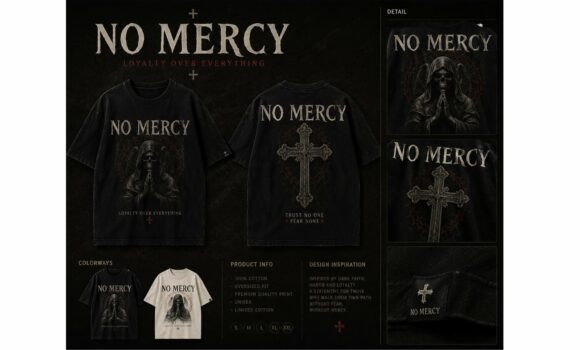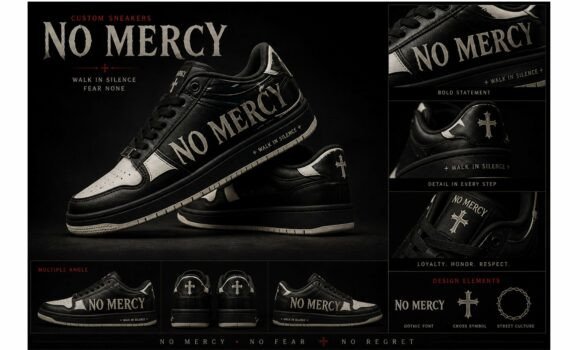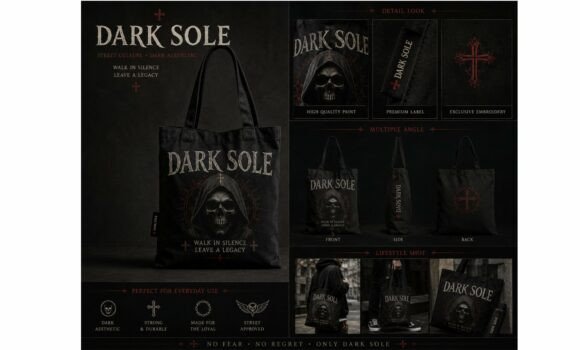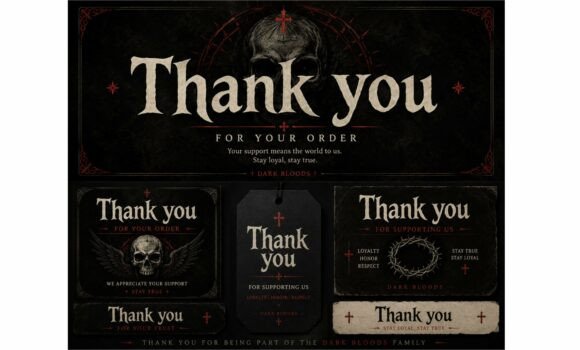
The Perfect Font for Your Darkest Creations
Have you ever stared at a blank canvas, eager to unleash your creativity but struggling to find the right words to bring your vision to life? That’s where the Dark Bloods Font comes in – a powerful tool for designers who crave a bold, dramatic typeface that screams darkness and intensity. With its sharp letterforms and vintage gothic character, this font is a game-changer for anyone looking to create streetwear, music artwork, tattoo designs, or premium apparel graphics that exude a sense of edginess and sophistication.
The Dark Bloods Font is more than just a stylish addition to your designs – it’s a statement piece that commands attention and sets the tone for your brand or project. Whether you’re working on a horror-themed poster, a metal band’s logo, or an urban fashion campaign, this font is the perfect choice for those who dare to be bold and fearless in their creative endeavors.
Key Features of Dark Bloods Font
- Font Family: Dark Bloods Font is a unique, hand-drawn font family consisting of multiple styles and weights.
- Character Set: Includes a wide range of characters, including uppercase and lowercase letters, numbers, punctuation, and special characters.
- Unique Characteristics: Features a distinctive, blood-like texture and subtle gradient effects that give it a haunting, mystical feel.
Designer Review: Dark Bloods Font
Dark Bloods Font has some great qualities that make it a decent choice for certain projects. ✨ One of the things I appreciate is its high contrast, which makes it perfect for highlighting important information or creating a dramatic effect. The bold lines and thick strokes give the font a distinctive, edgy feel that can work well in modern and industrial designs.
✨ I also like the variety of weights and styles available, which allows for a lot of flexibility when using the font in different contexts. The font also supports multiple languages, which is a nice touch.
Limitsations
⚠️ However, there are some limitations to consider. The font can feel a bit too bold and heavy-handed in certain situations, which may make it difficult to read in large blocks of text. Additionally, the font’s edgy feel may not be suitable for all types of projects, particularly those that require a more subtle or elegant look.
⚠️ Another limitation is that the font may not be as versatile as some other fonts on the market. While it works well for certain types of projects, it may not be the best choice for more complex or nuanced designs.
Overall, I would say that Dark Bloods Font is a solid choice for designers who are looking for a bold, eye-catching font. However, it may not be the best choice for designers who prefer a more subtle or versatile font.
Key Features
- High contrast and bold lines
- Multiple weights and styles available
- Supports multiple languages
- Edgy, industrial feel
Tips for Getting the Most Out of Dark Bloods Font
To get the most out of the Dark Bloods font, use it for:
- Grungy, edgy designs that need a bold, industrial feel.
- Post-apocalyptic or dystopian-themed projects.
- Designs that need a sense of rebellion or nonconformity.
The Dark Bloods font is commonly used for:
- Rock band logos and merchandise.
- Post-apocalyptic or dystopian-themed book covers.
- Edgy, industrial-themed website designs.